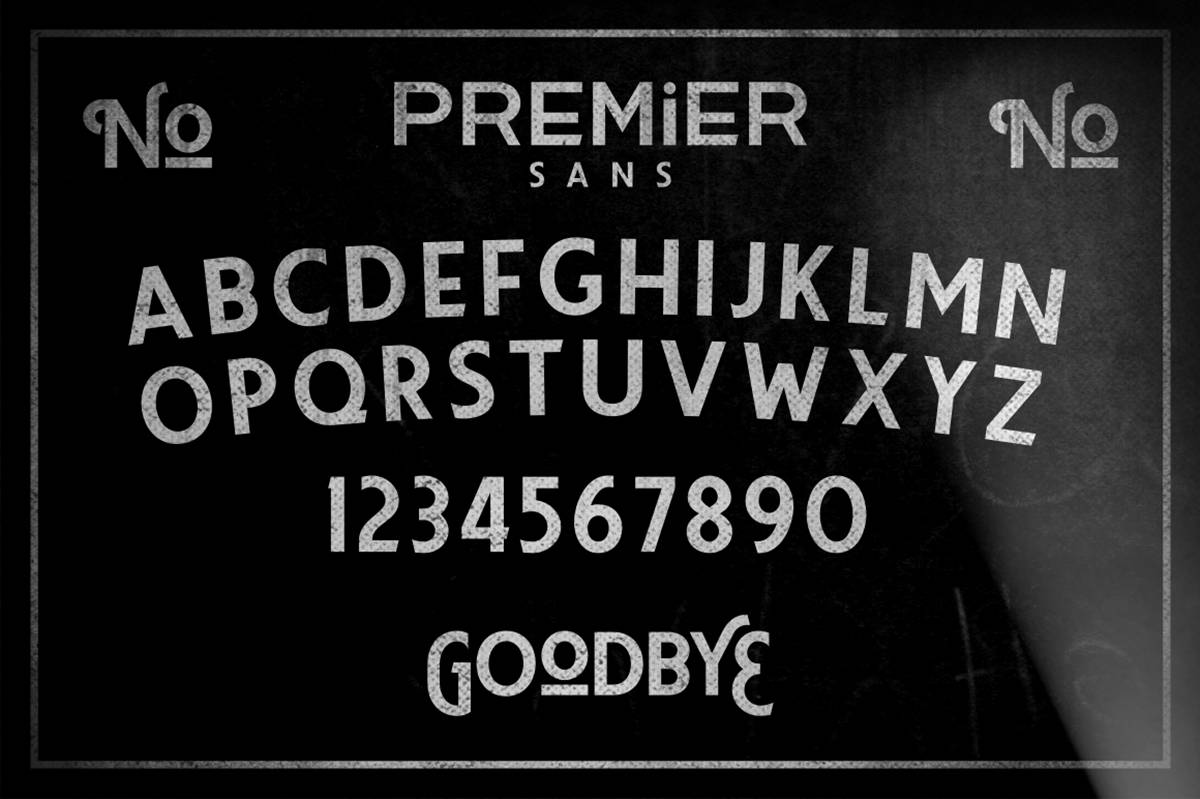
Premier Sans is a clean, bold sans-serif typeface with a modern and geometric feel, featuring a uniform stroke weight and a slightly condensed width that enhances its strong presence. Its double-story characters and sharp, angular forms convey clarity and confidence, making it ideal for headlines, branding, and editorial use where a contemporary, professional look is desired.
Premier Font
About Premier Font
| Font family | Premier Font |
| Release date | 2016-04-28 |
| Designer | Twicolabs Fontdation |